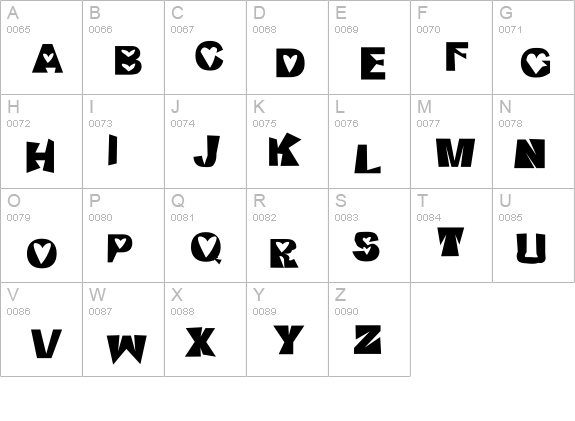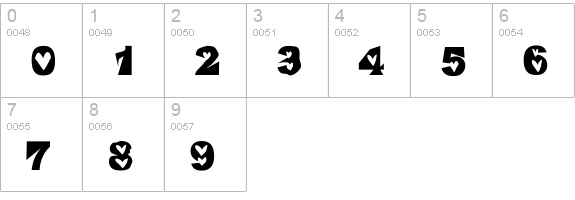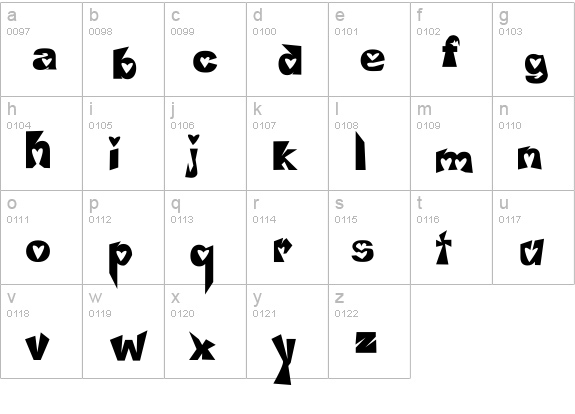
Heartless Valiumwhore Font Details
Introducing the captivating Heartless Valiumwhore font, a mesmerizing typeface that will leave you breathless. This font is the embodiment of edgy elegance and mysterious allure, making it the perfect choice for those seeking to add a touch of intrigue to their design projects. Heartless Valiumwhore features a unique blend of sharp edges and delicate curves, creating a harmonious balance that captures attention and sparks curiosity. Its bold letterforms exude confidence, while its intricate details add a subtle touch of sophistication. What sets Heartless Valiumwhore apart is its versatility. Whether you're creating a logo, designing a poster, or crafting a headline, this font effortlessly adapts to any project, enhancing its visual impact and leaving a lasting impression. But what makes Heartless Valiumwhore even more special is that it is available to download for free at FontsMarket.com. Yes, you read that right! This captivating font can be yours without spending a dime, allowing you to unleash your creativity without limitations. Don't miss out on the opportunity to elevate your designs with the captivating Heartless Valiumwhore font. Download it for free at FontsMarket.com and let your imagination run wild.